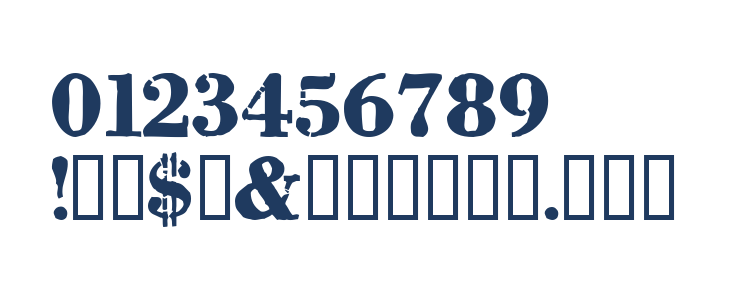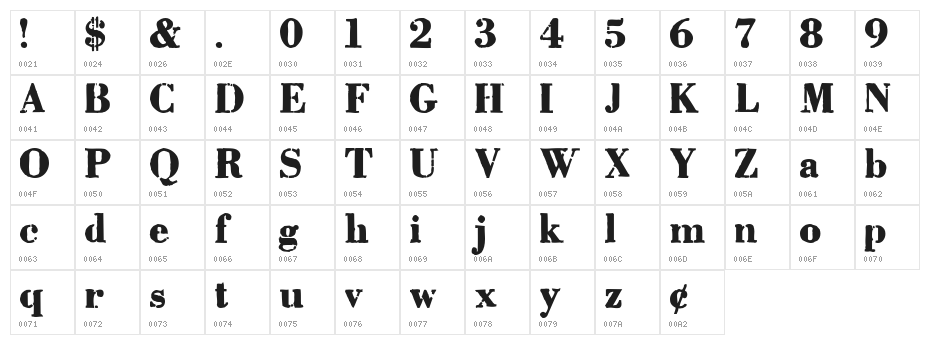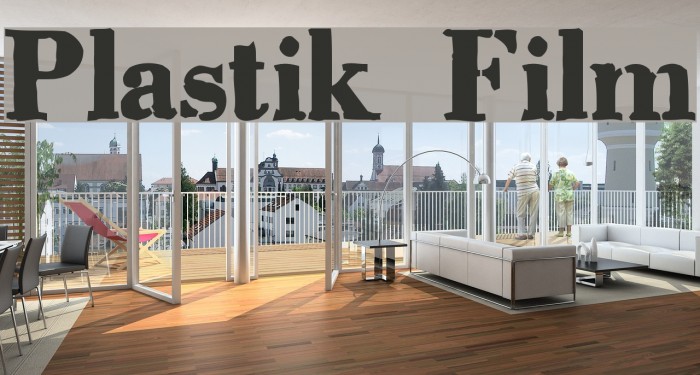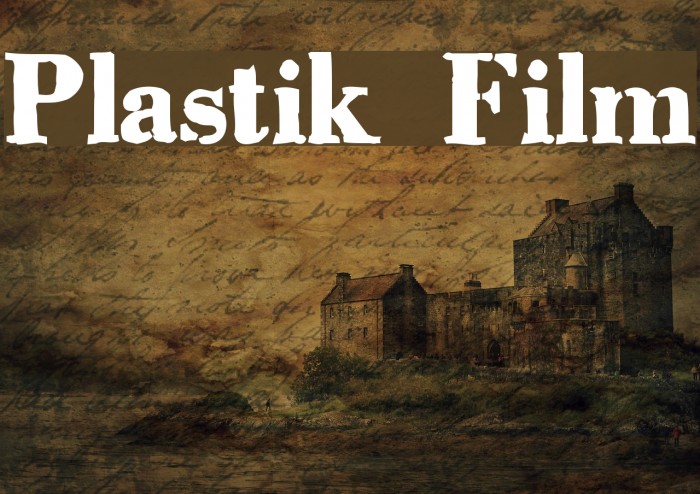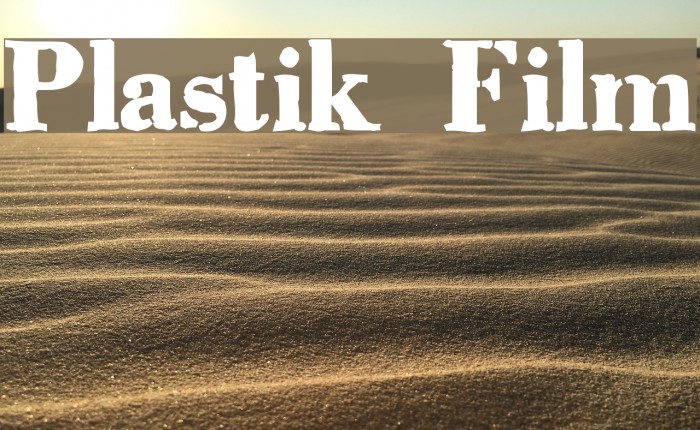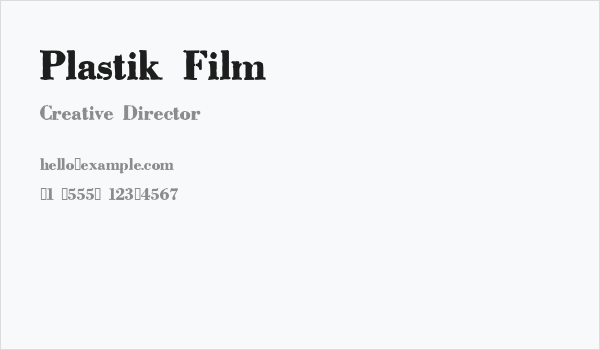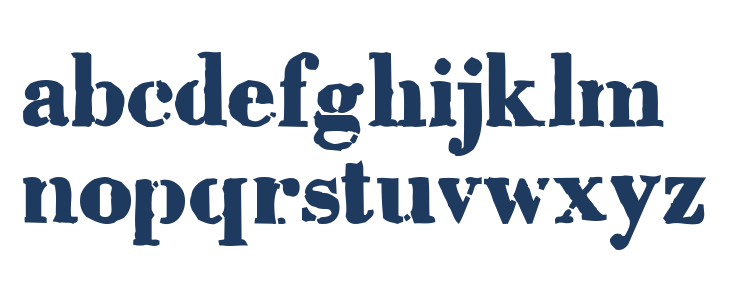
Plastik Film Font
Plastik Film Description
This font exhibits a bold and distressed style, characterized by its rough, textured edges that give it a worn, vintage appearance. The uppercase and lowercase letters maintain a consistent weight, with a slightly condensed form that enhances its boldness. The numerals and special characters follow the same distressed aesthetic, making the font cohesive across all characters. The irregularities in the strokes add a unique, handcrafted feel, making it stand out in any design. Its bold presence and distinctive style make it suitable for projects that require a strong visual impact.
Overall StyleVintage
Proposed ProjectsIdeal for posters, album covers, branding, and any design needing a bold, vintage touch.